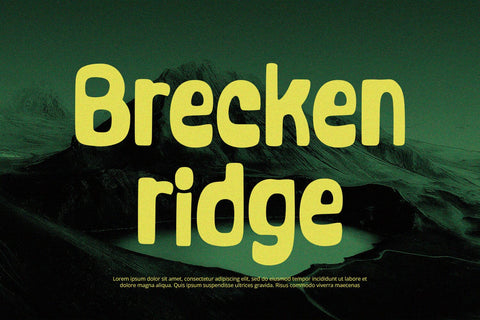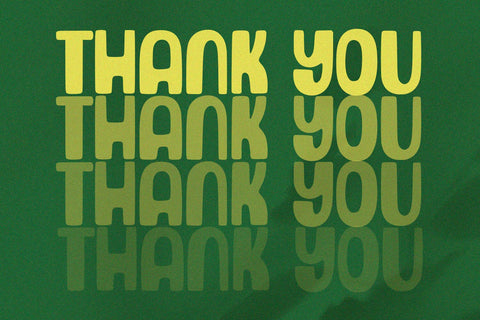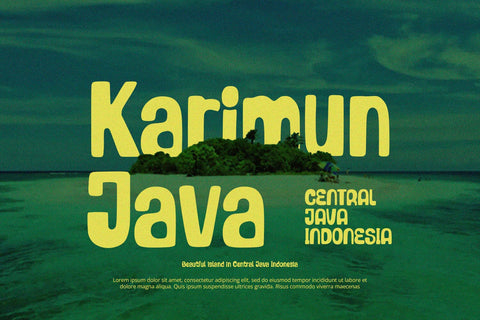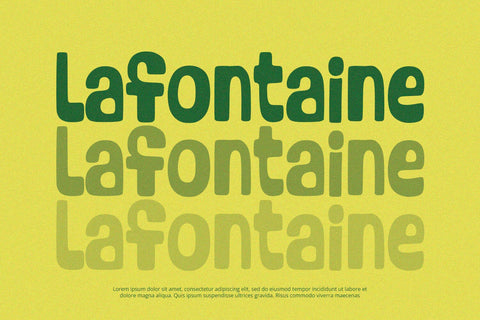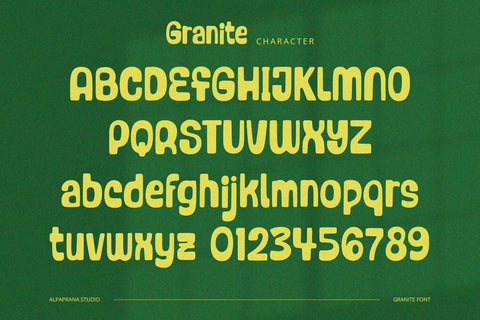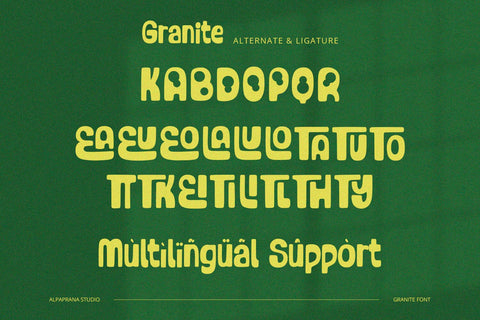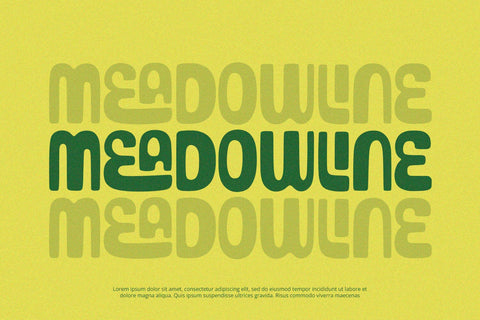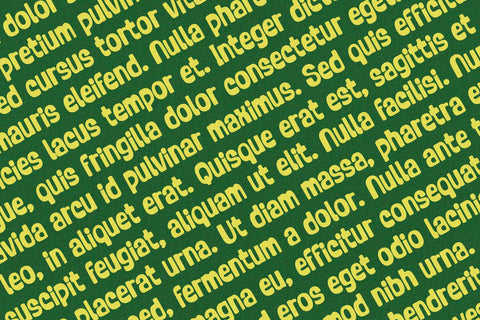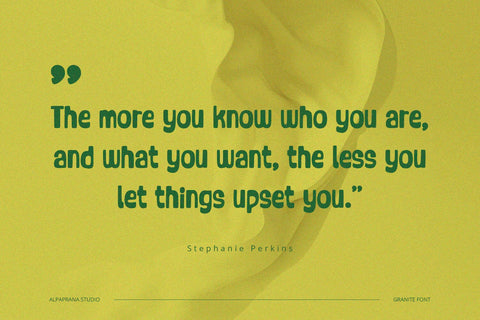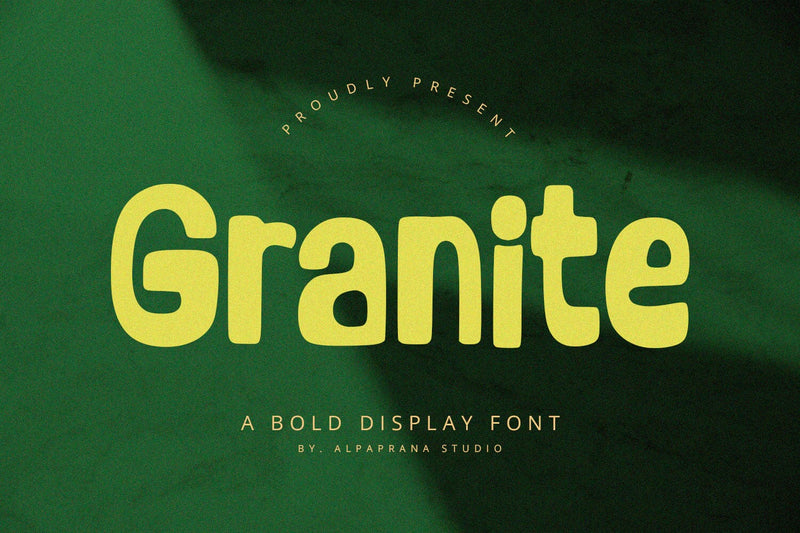
Granite - Bold Display Font
Granite is bold display font with modern and playful feels. It will be perfectly used for Branding, Logo Design, Lettering, Logotype, Clothing, Poster, magazine, packaging, posters, shopping bags, t-shirts, book covers, photography, special events and other design project.